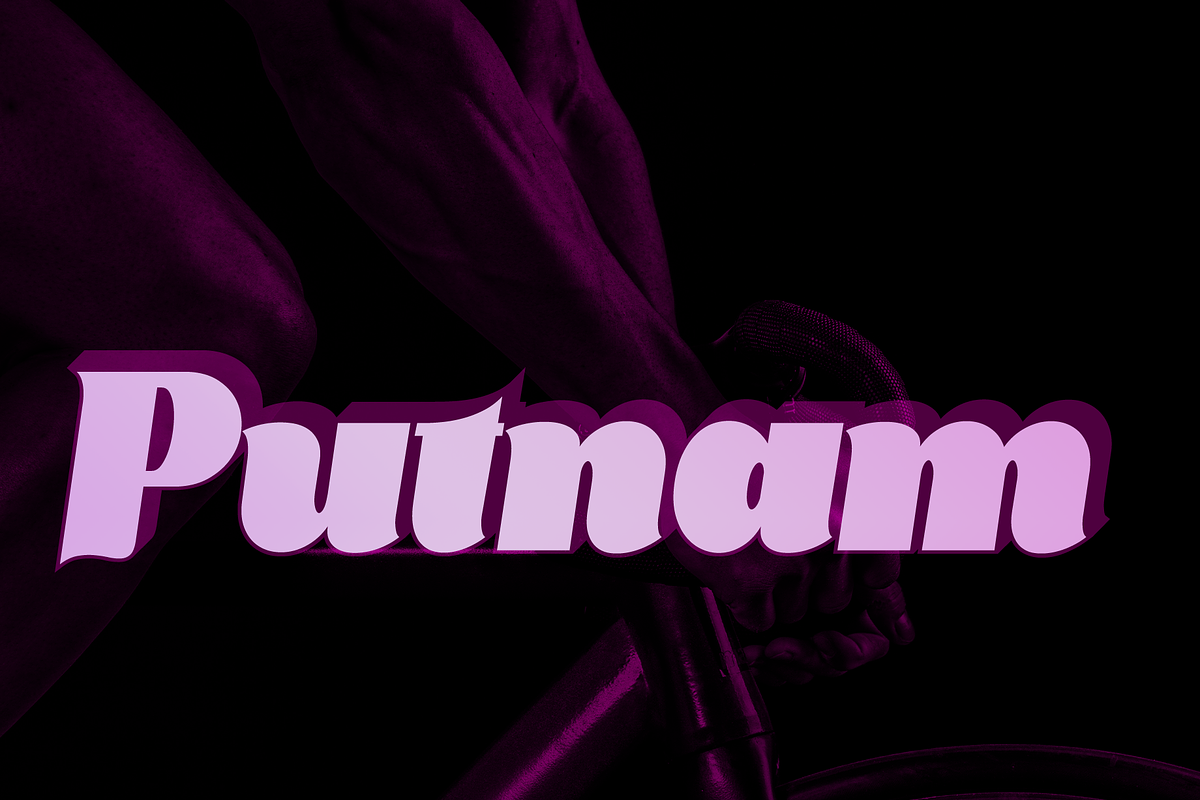
Putnam Font is perfect for corporate branding projects, professional business materials, formal document design, executive presentations, legal firm communications, financial services branding, government publications, institutional signage, academic credentials, official correspondence, traditional newspaper layouts, and authoritative brand identity systems.
Putnam Font is exciting because it embodies institutional authority and professional excellence through its commanding letterforms that communicate trustworthiness, reliability, and established credibility in every application. This distinguished typeface features strong, confident characters with impeccable proportions that convey competence and institutional gravitas. The font's authoritative presence makes every message feel official, important, and worthy of serious consideration by professional audiences.
Putnam Font includes comprehensive font families: Regular Professional Style, Bold Executive Weight, Light Corporate Touch, Medium Institutional Balance, Italic Formal Slant, Condensed Business Width, Extended Official Format, Small Caps Authority, Ornamental Traditional Elements, and Special Corporate Symbols, providing complete solutions for professional and institutional design requirements.
This authoritative typography solution transforms standard business communications into distinguished professional presentations through its institutional aesthetic and commanding design presence. Putnam Font Free Download enables designers and business professionals to access premium corporate typography that instantly adds authority, credibility, and professional polish to any creative project. The font's meticulously engineered proportions ensure perfect readability while maintaining its distinctive institutional character and executive appeal.
Corporate designers, legal professionals, and institutional brands rely on Putnam Font for its ability to communicate expertise, trustworthiness, and professional excellence to audiences who demand authority and reliability in business communications. The typeface's robust construction performs exceptionally well across various applications, from intimate business cards to large-scale corporate signage. Its extensive character support includes multilingual capabilities and professional design elements that enhance authoritative brand presentations.
The design heritage behind Putnam Font draws from established institutional typography traditions and professional communication standards that have defined corporate excellence and governmental authority for decades. This authority-focused approach creates a font that feels genuinely institutional while maintaining contemporary relevance across different professional contexts and corporate brand expressions.
Whether creating corporate identity systems, legal documentation, or institutional marketing materials, this font delivers exceptional results that command respect and communicate professional competence. Download Putnam Font today and discover how premium institutional typography can transform your business projects into authoritative expressions of professional excellence, corporate reliability, and institutional trust that establish immediate credibility and command serious attention.